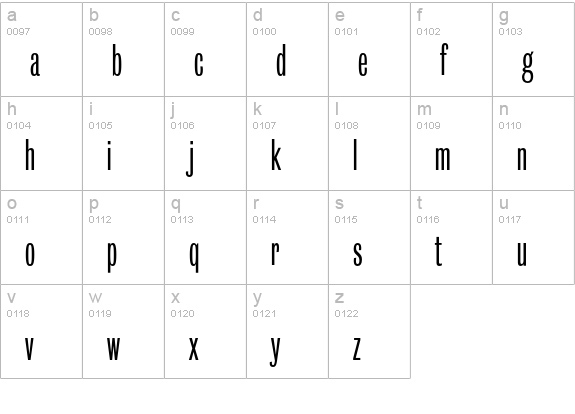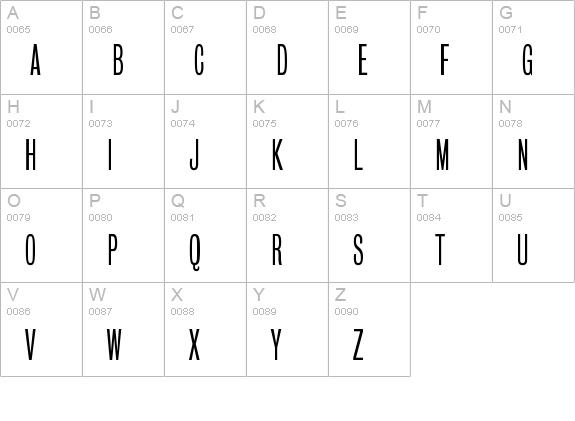
BureauGrotesque-OneOne Font Details
BureauGrotesque-OneOne is a stunning and versatile font that exudes modernity and sophistication. With its clean lines and sharp edges, this font is perfect for creating sleek and professional designs. Whether you're working on a website, brochure, or branding project, BureauGrotesque-OneOne will elevate your design to the next level. What sets BureauGrotesque-OneOne apart is not only its impeccable design but also its accessibility. This premium font is available for free download at FontsMarket.com, making it easily accessible to designers of all levels. Say goodbye to expensive font purchases and hello to high-quality typography at your fingertips. With BureauGrotesque-OneOne, you can bring your creative visions to life without breaking the bank. Download this exceptional font today and add a touch of elegance to your designs.